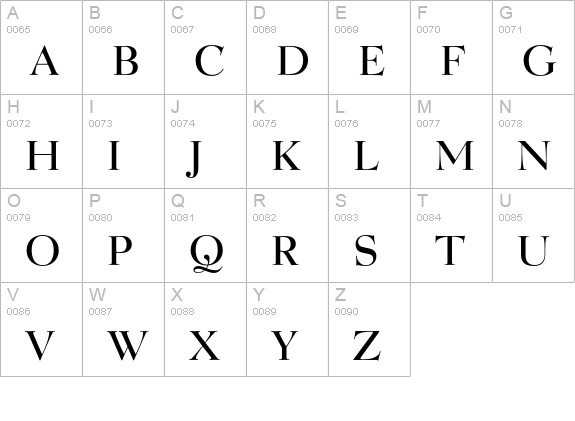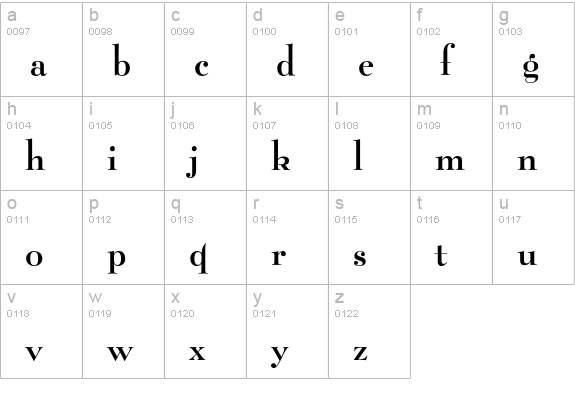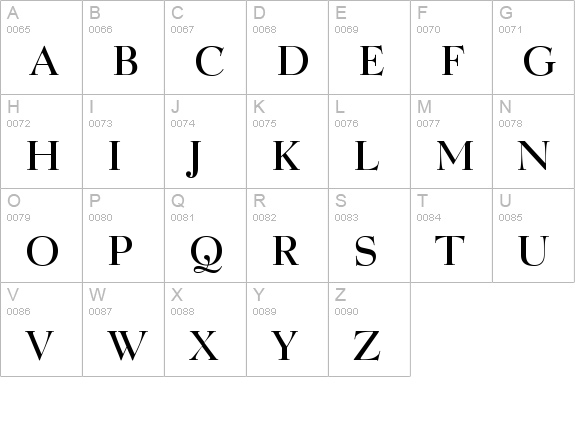
BeLucianDemi Font Details
BeLucianDemi is a modern and stylish font that exudes sophistication and elegance. With its clean lines and bold lettering, this font is perfect for a wide range of design projects, from branding to editorial design. The sleek and contemporary design of BeLucianDemi makes it a versatile choice for both print and digital applications. The font is available for free download at FontsMarket.com, making it accessible to designers and creatives looking to elevate their projects with a touch of luxury and refinement. Whether you're working on a logo, website, or marketing materials, BeLucianDemi is sure to make a bold statement and leave a lasting impression on your audience. Elevate your designs with BeLucianDemi and bring a touch of modern sophistication to your projects.